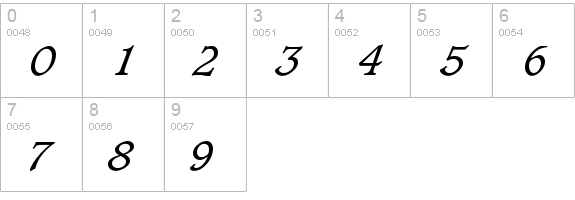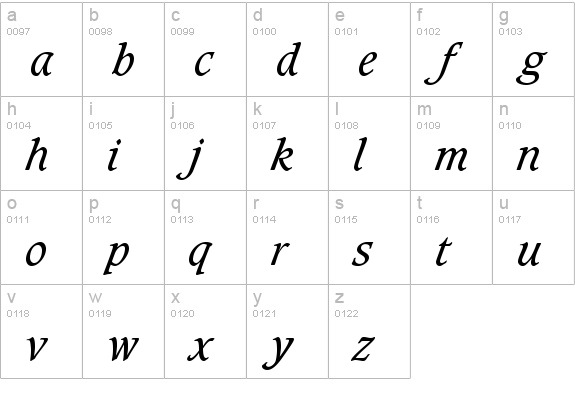
Caxton Book Italic Font Details
Caxton Book Italic is a comfortable, highly readable, italic variant in the Caxton typeface family \xE2\x80\x94 well suited to long-form body text, articles, and editorial content.
Caxton Book Italic font exudes elegance and sophistication with its sleek and refined design. Its italicized style adds a touch of flair and grace to any text, making it perfect for conveying a sense of sophistication and class. The flowing curves and delicate serifs of Caxton Book Italic create a harmonious balance that is both pleasing to the eye and easy to read. What makes Caxton Book Italic even more appealing is that it is available for free download at FontsMarket.com. This means that you can enhance your projects with this exquisite font without having to spend a dime. Whether you're designing invitations, crafting a logo, or simply want to elevate the look of your documents, Caxton Book Italic is the perfect choice. Download it today and add a touch of elegance to your designs.